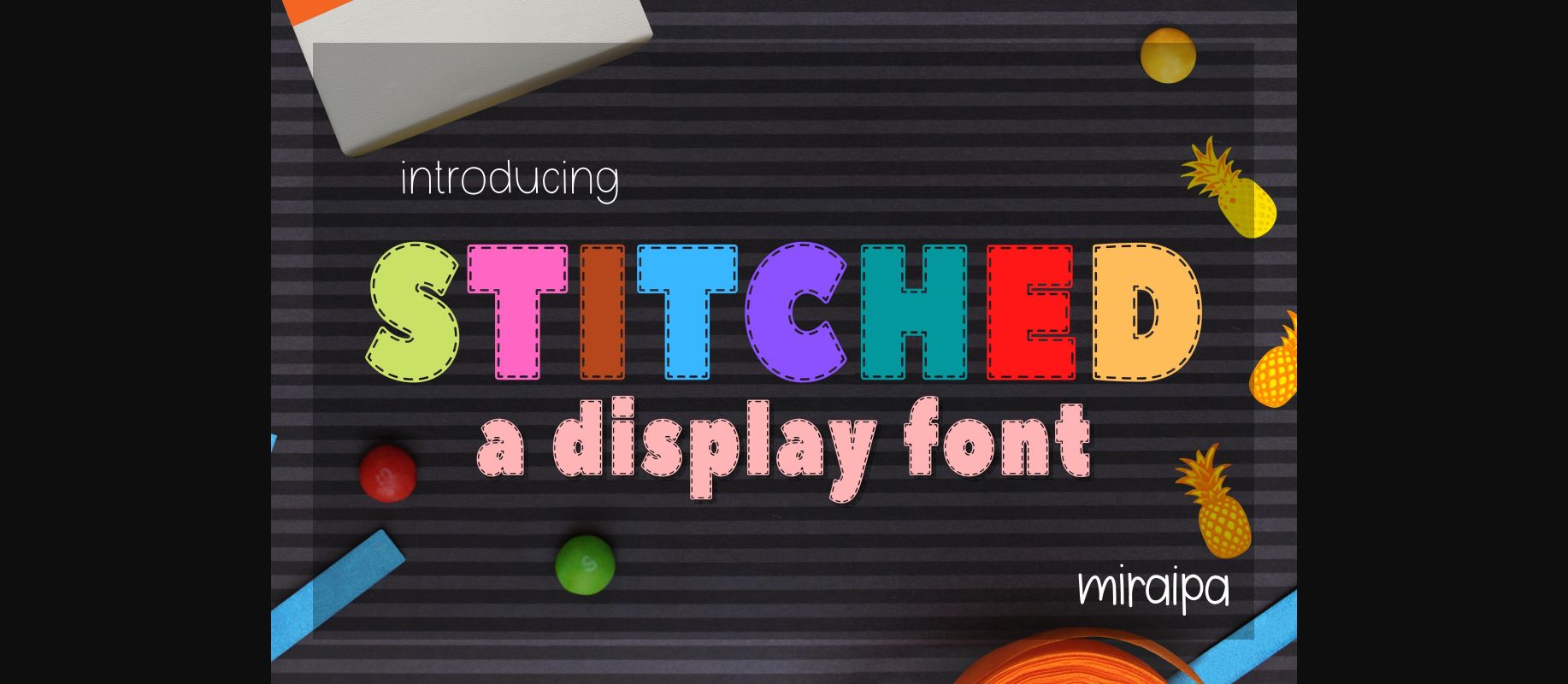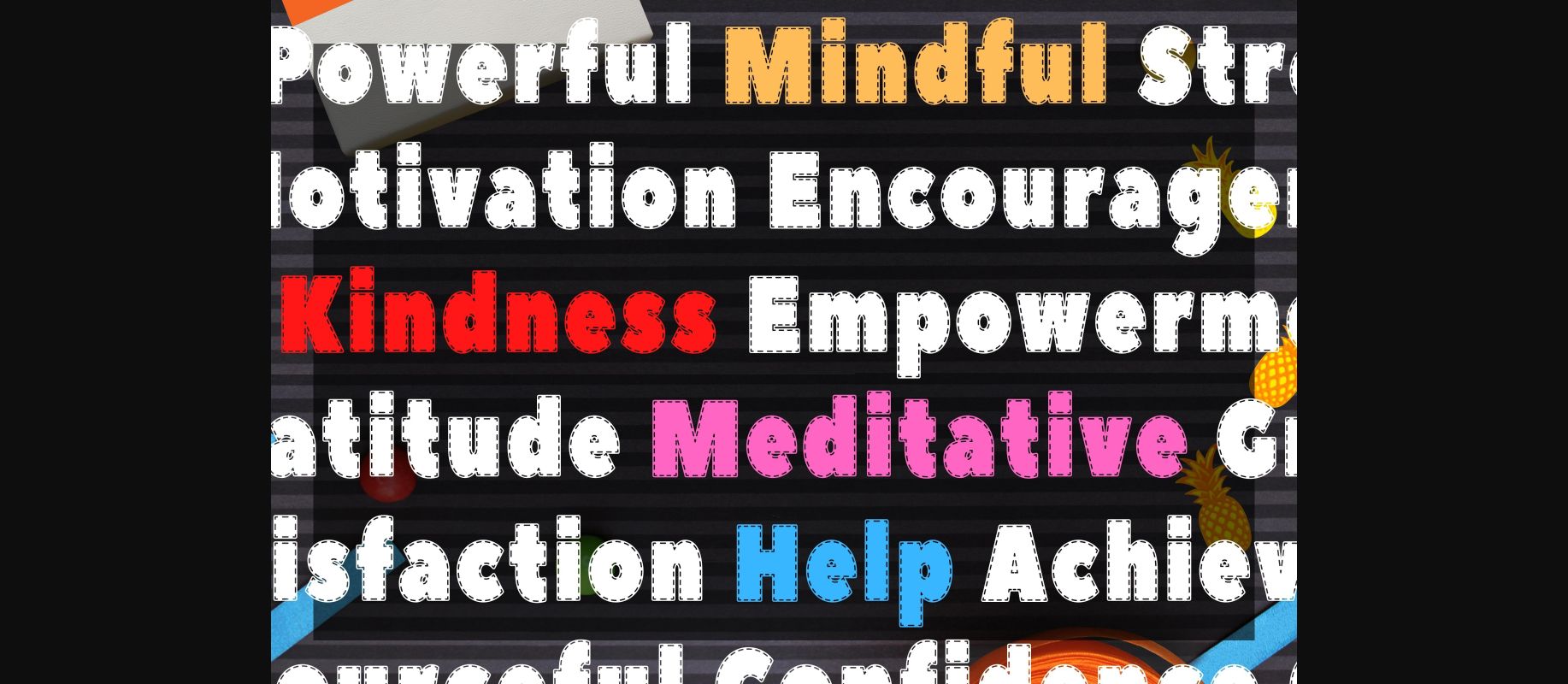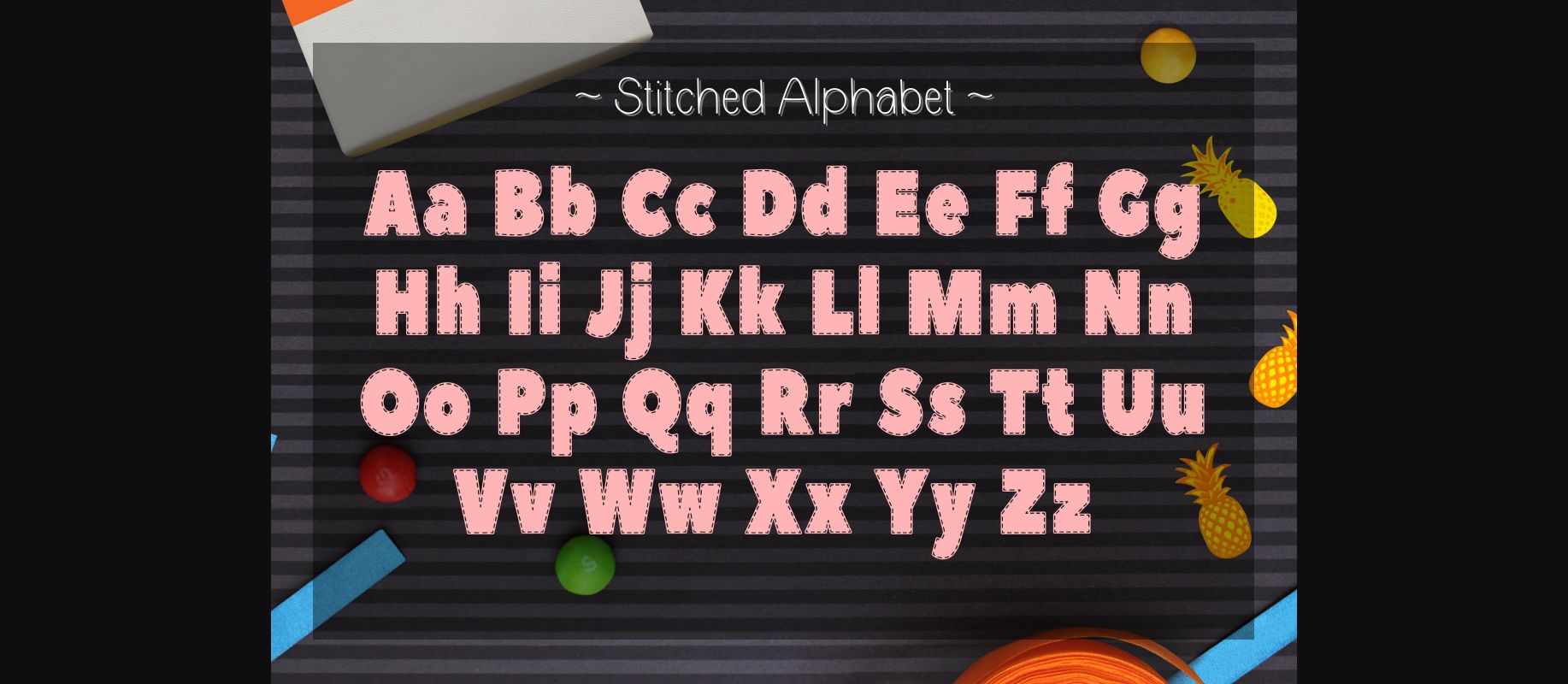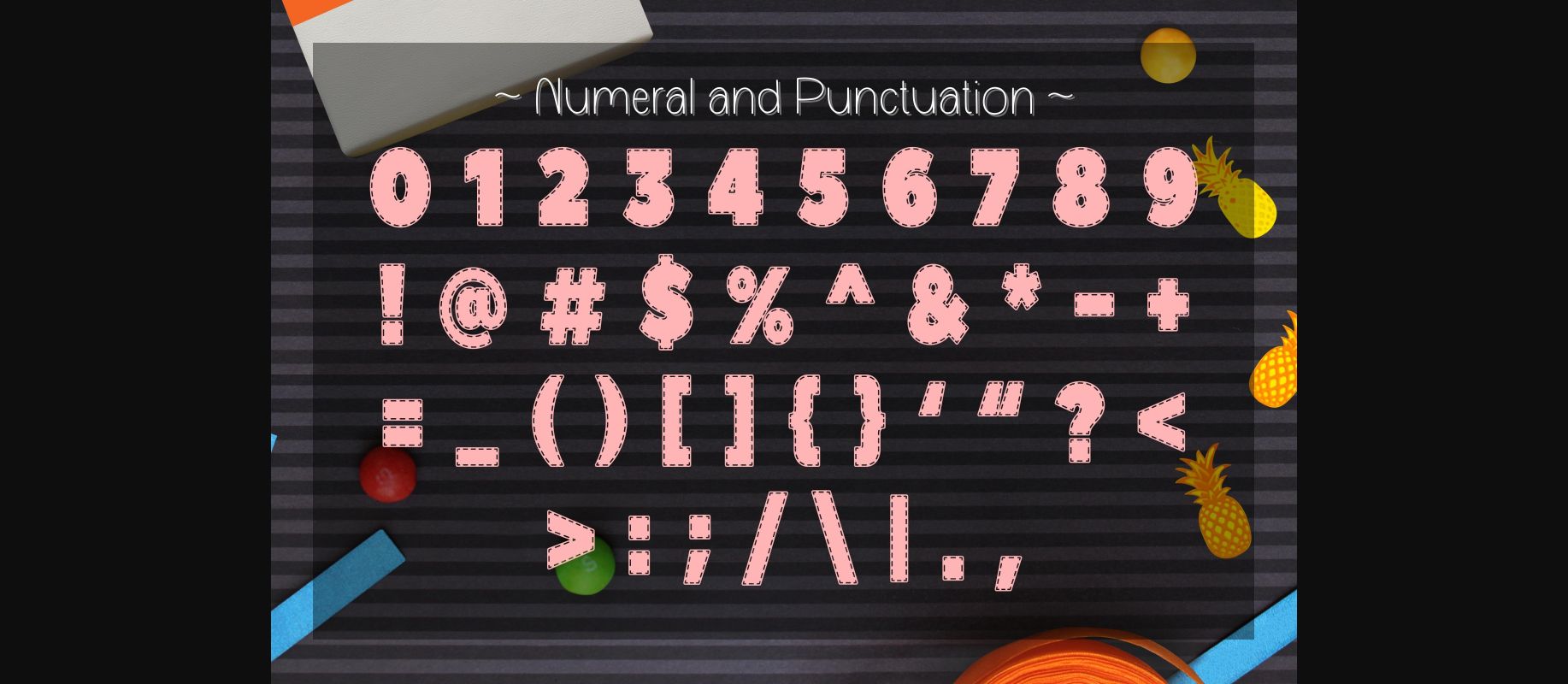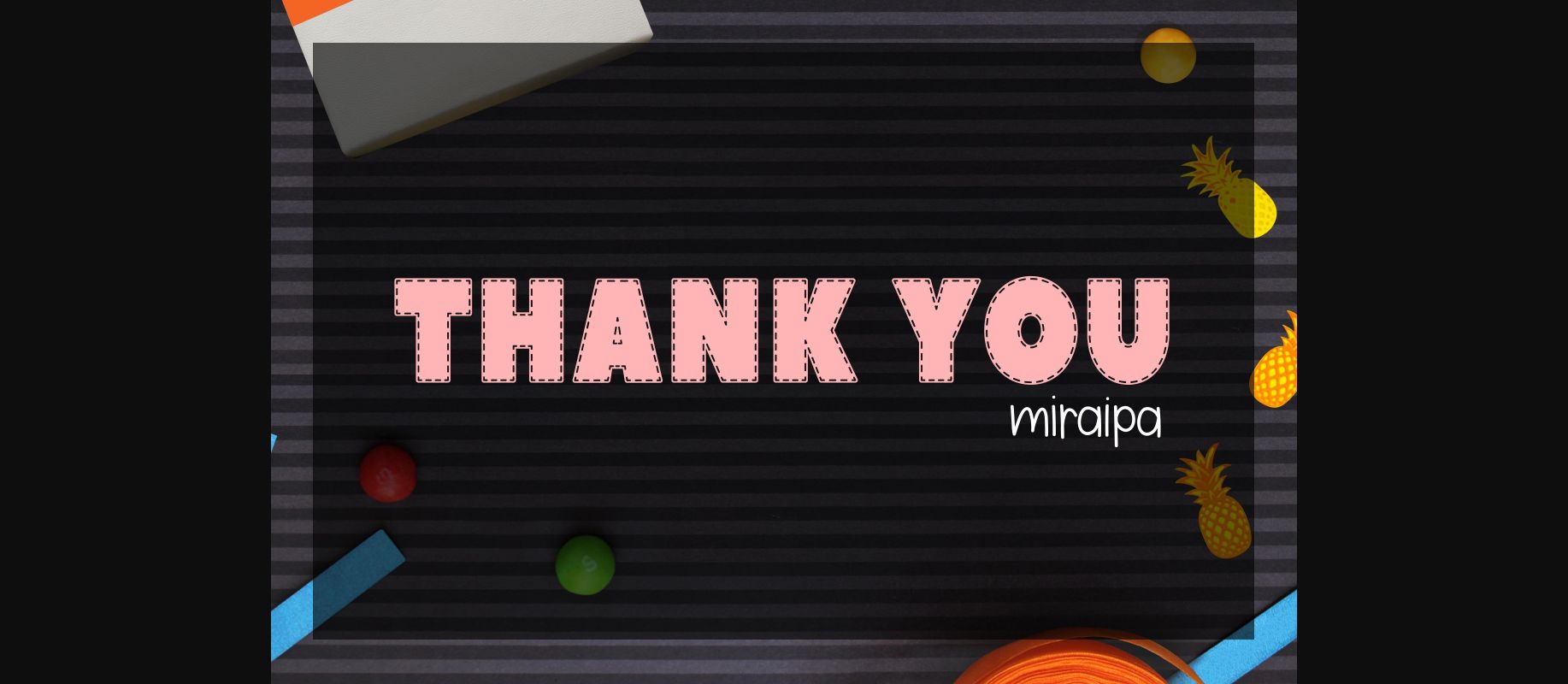
About Stitched Font
Stitched is a lovely and playful display font perfect for designers who make creative projects for kids and women. Use it with confidence, and it will add a friendly and wonderful touch to your projects.